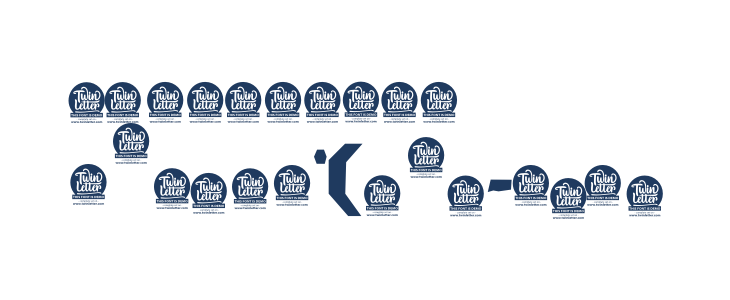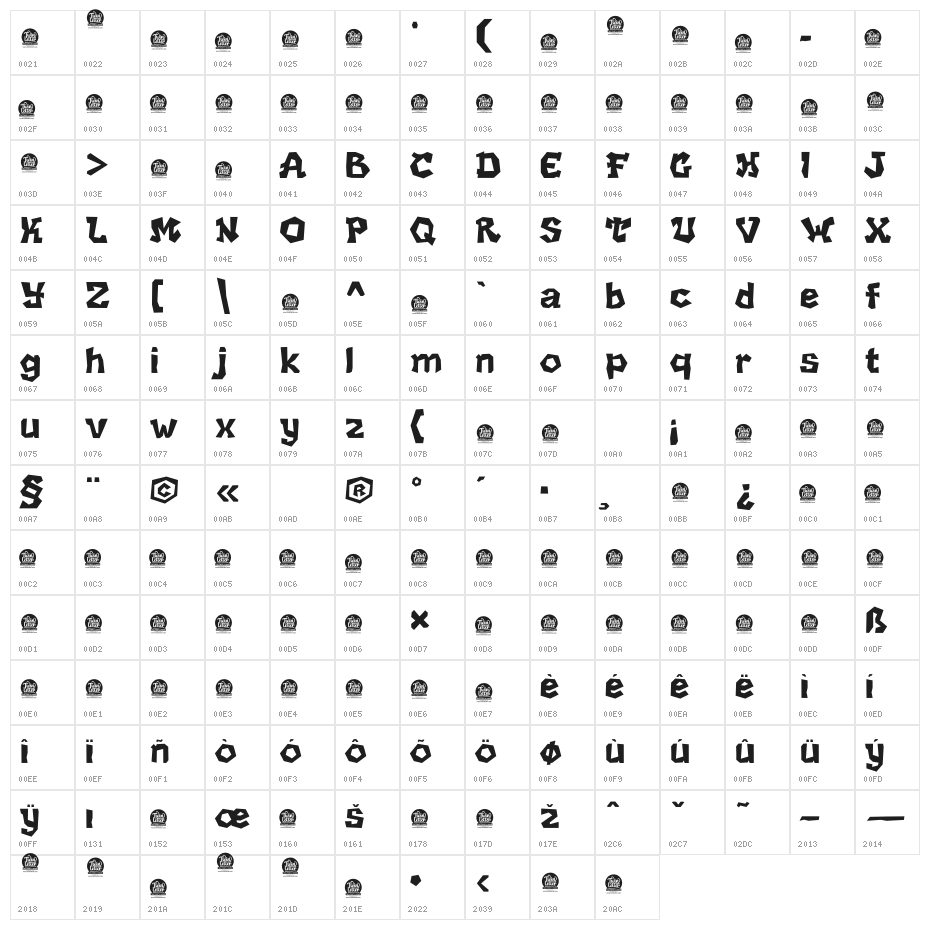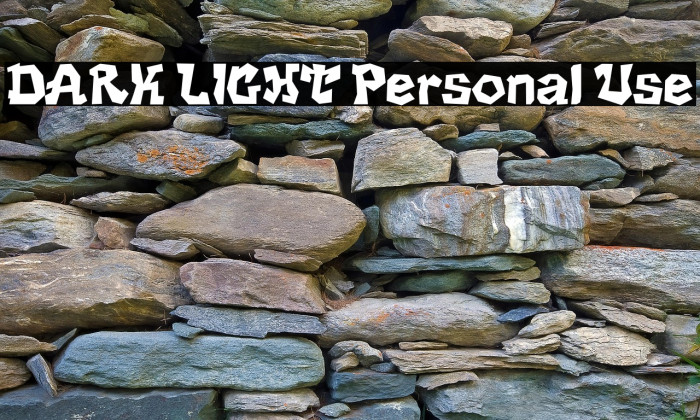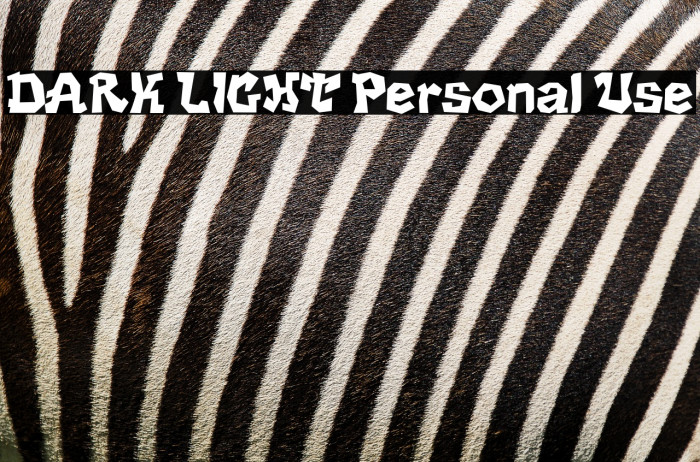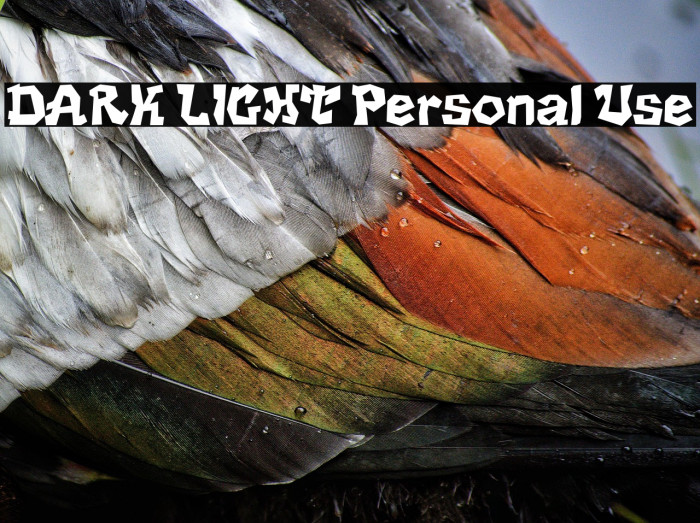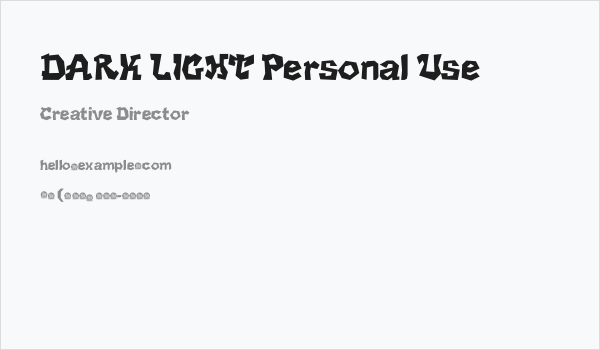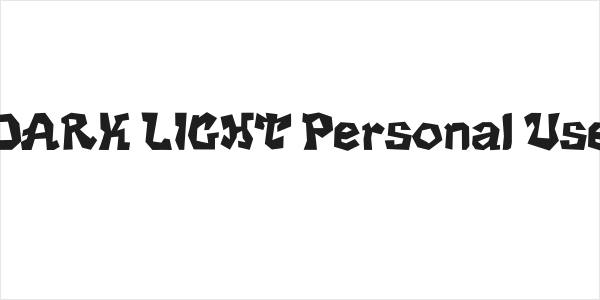
DARK LIGHT Personal Use Font
DARK LIGHT Personal Use Description
This font features a bold and edgy design with sharp, angular lines that give it a distinctive and modern appearance. The characters are crafted with a unique geometric style, incorporating both thick and thin strokes that create a dynamic visual contrast. The uppercase and lowercase letters maintain a consistent style, while the numerals and special characters complement the overall aesthetic. This font is well-suited for projects that require a strong and impactful visual presence.
| Proposed Projects | Ideal for branding, posters, album covers, and any project needing a striking, modern look. |